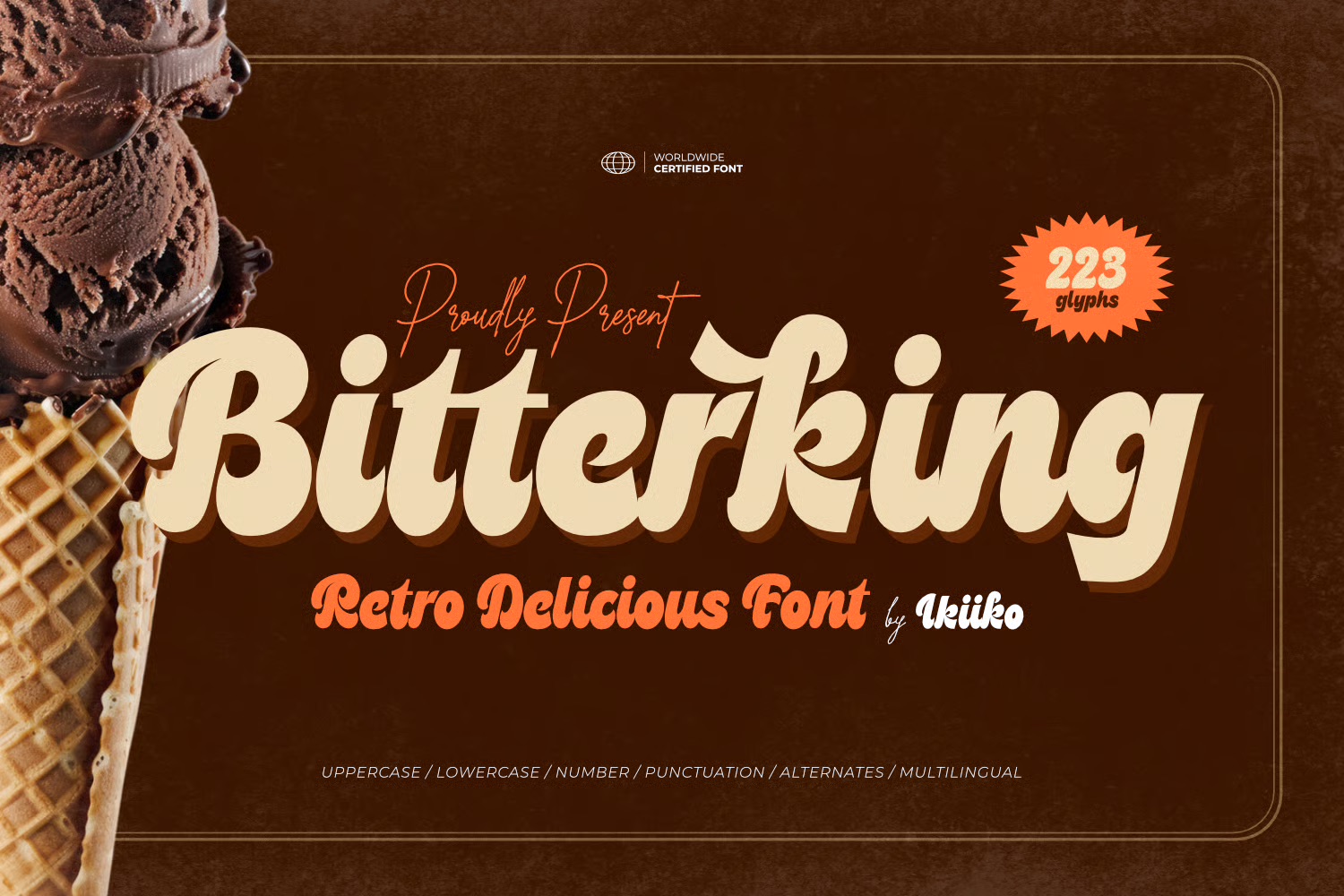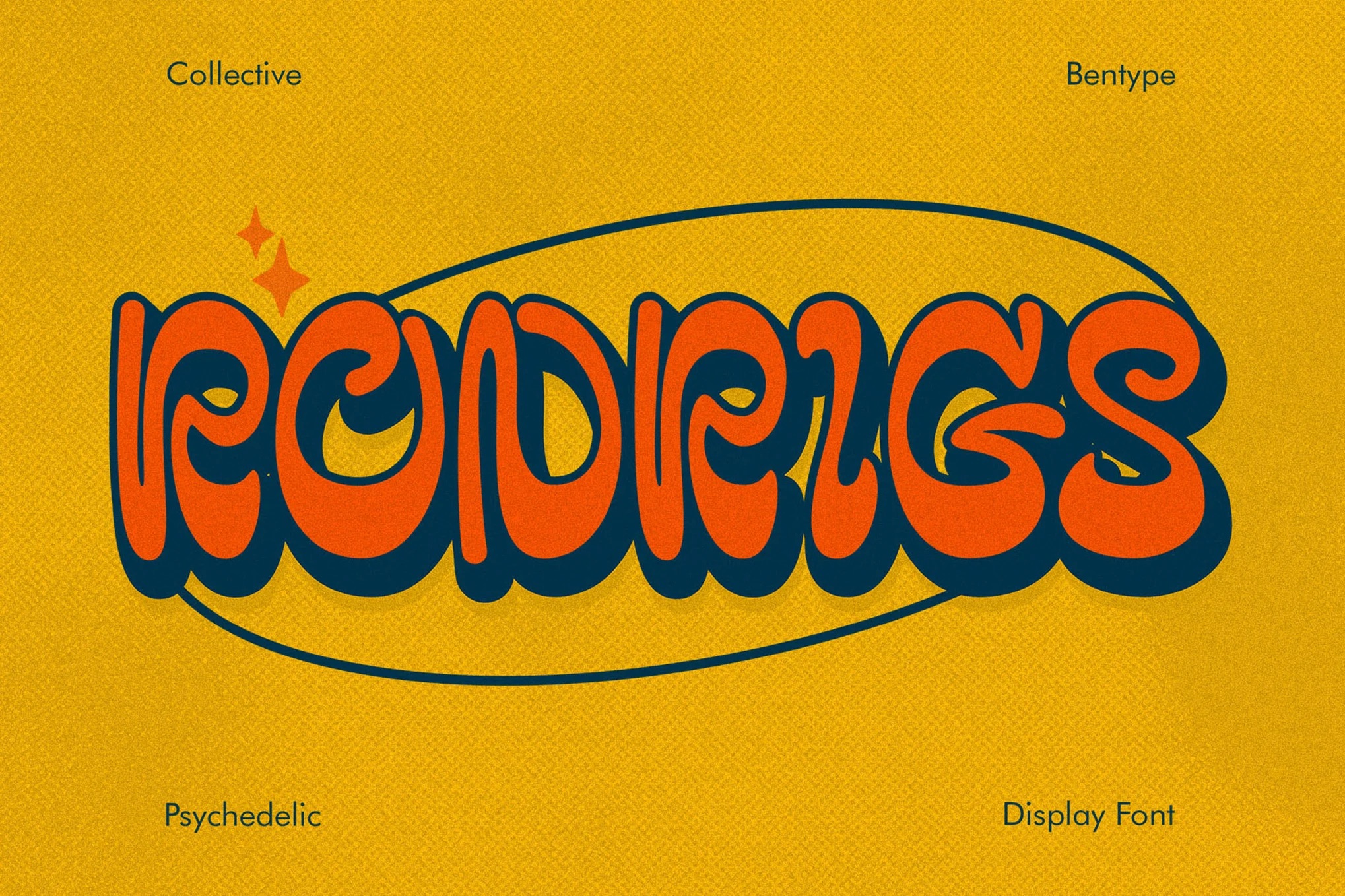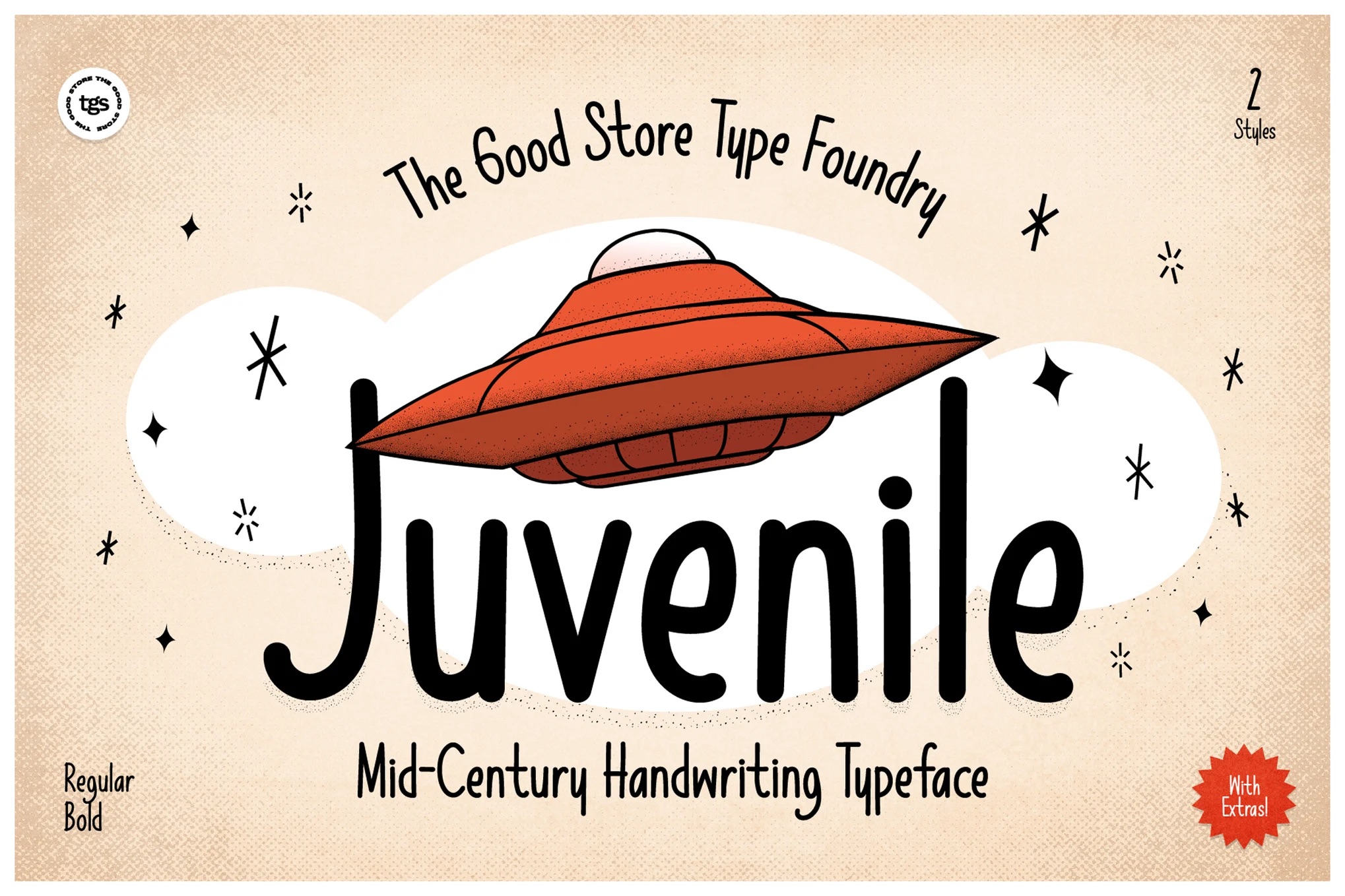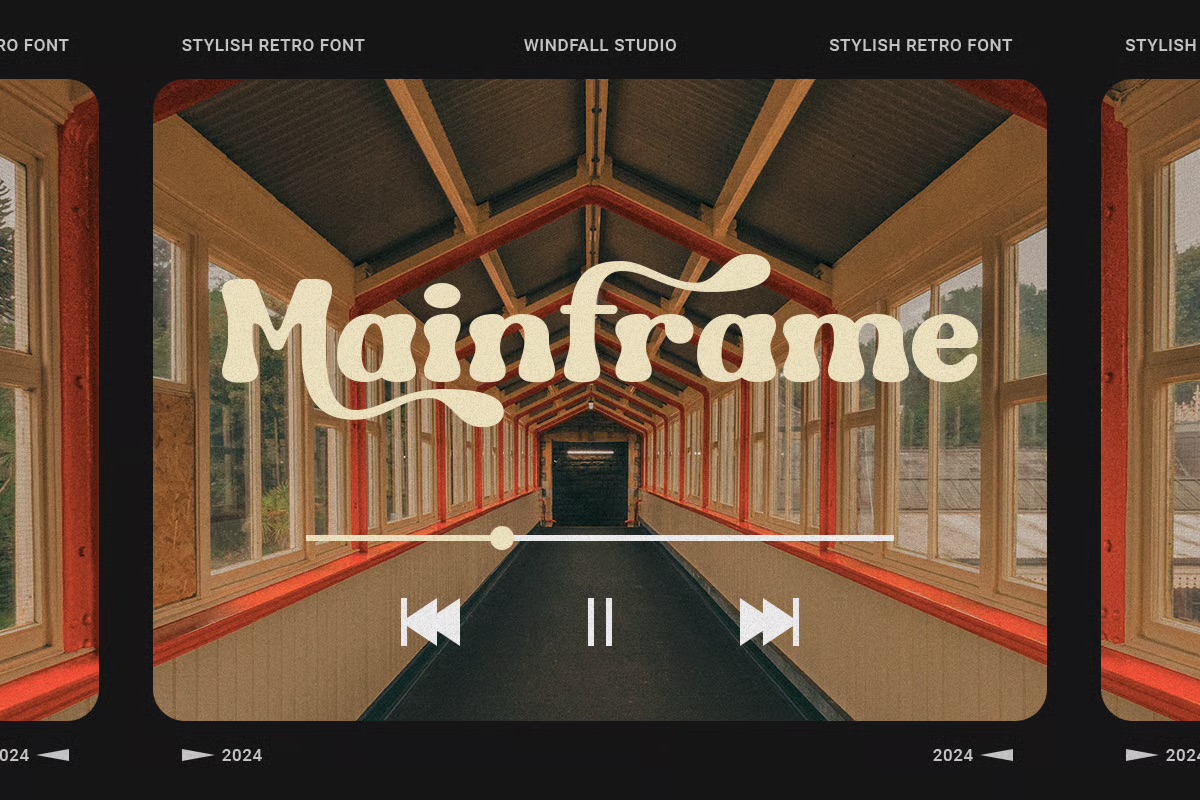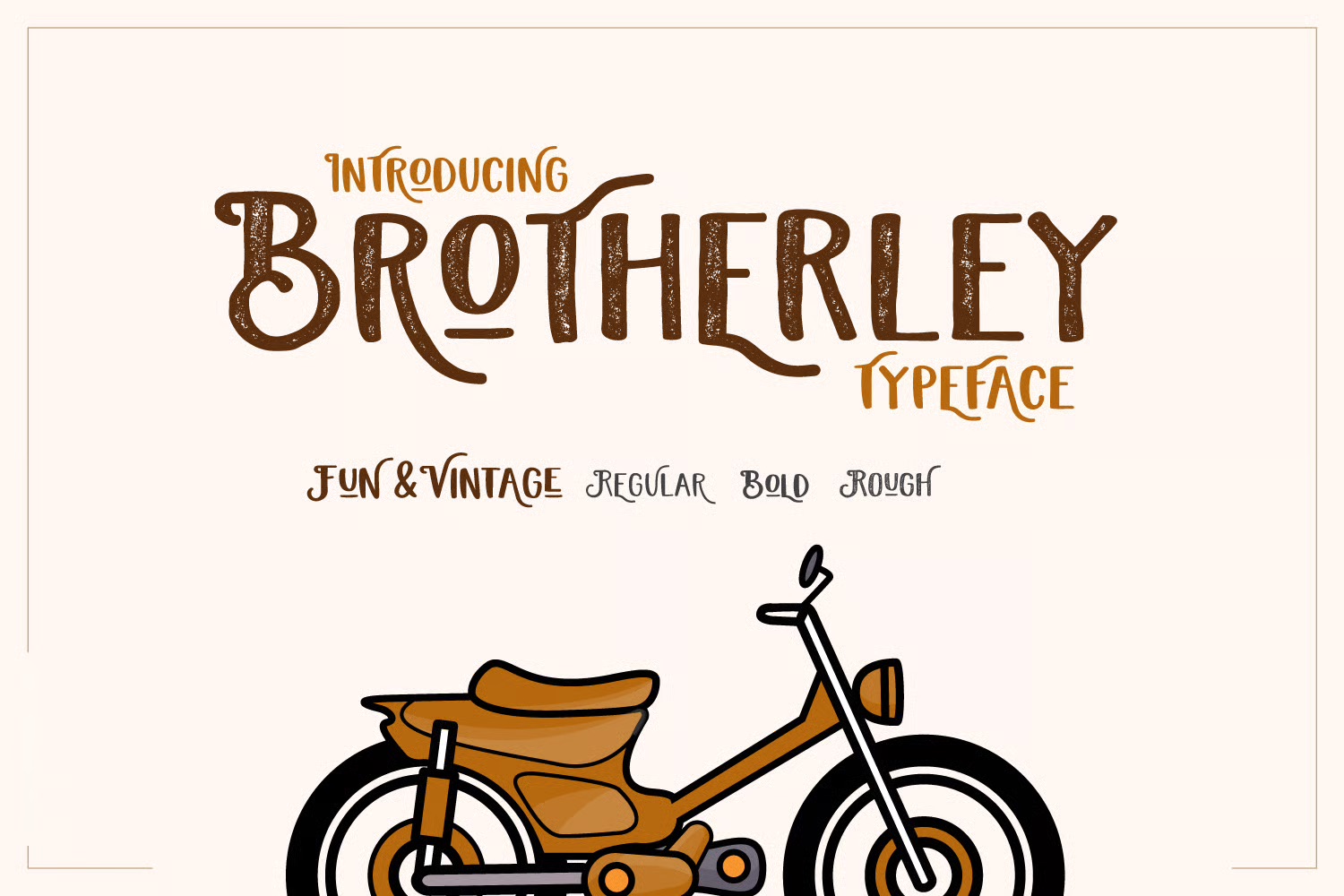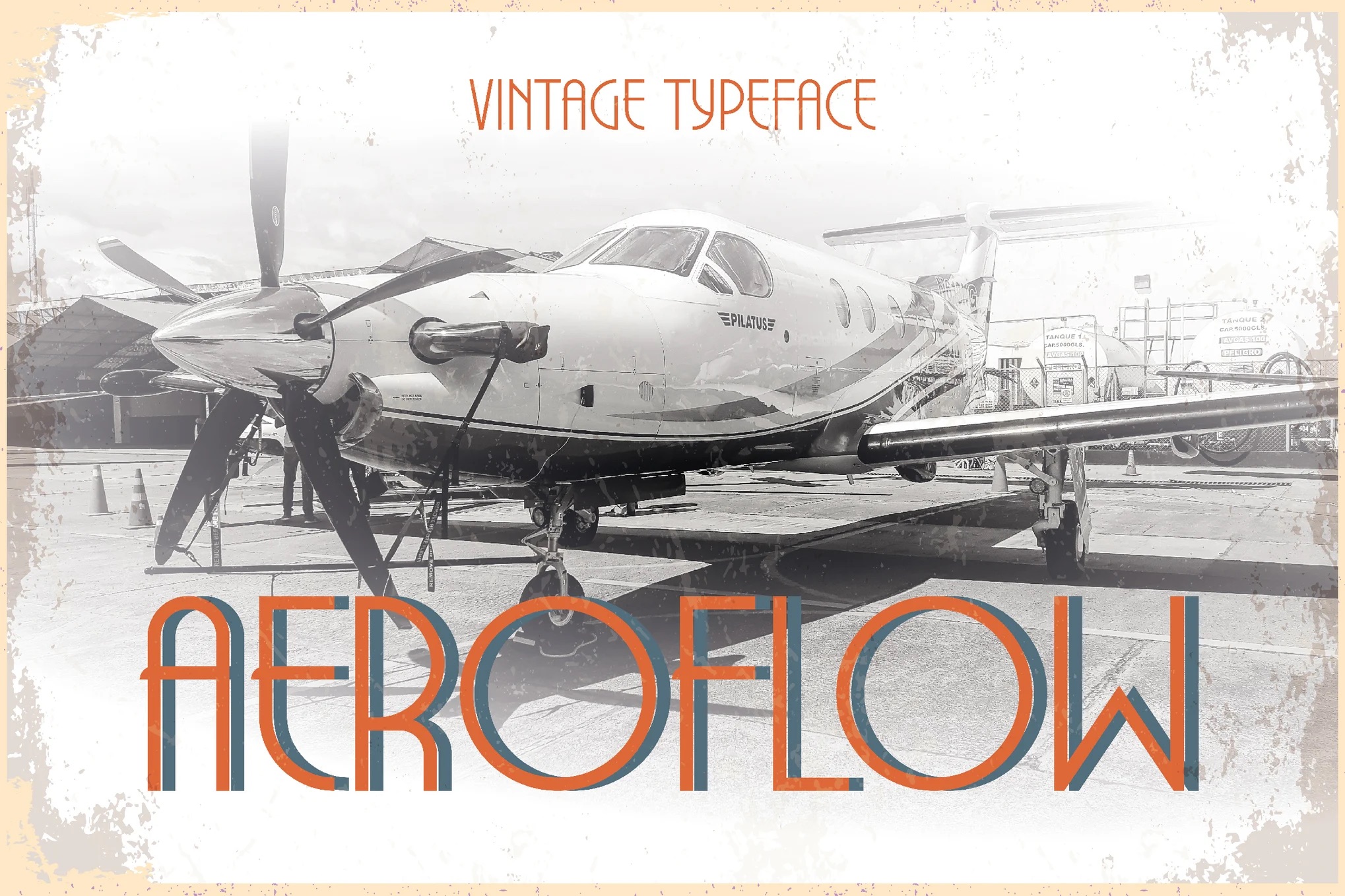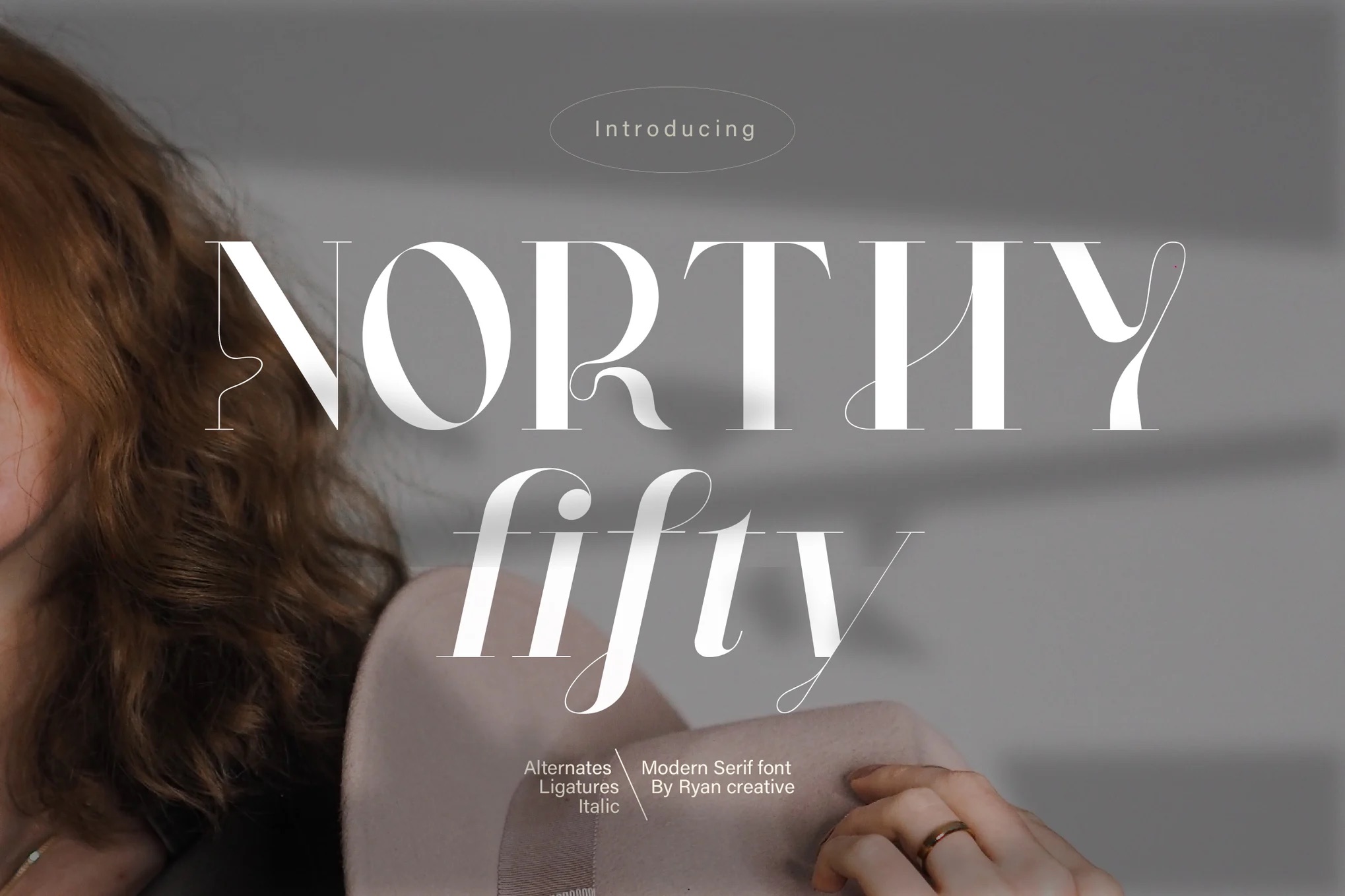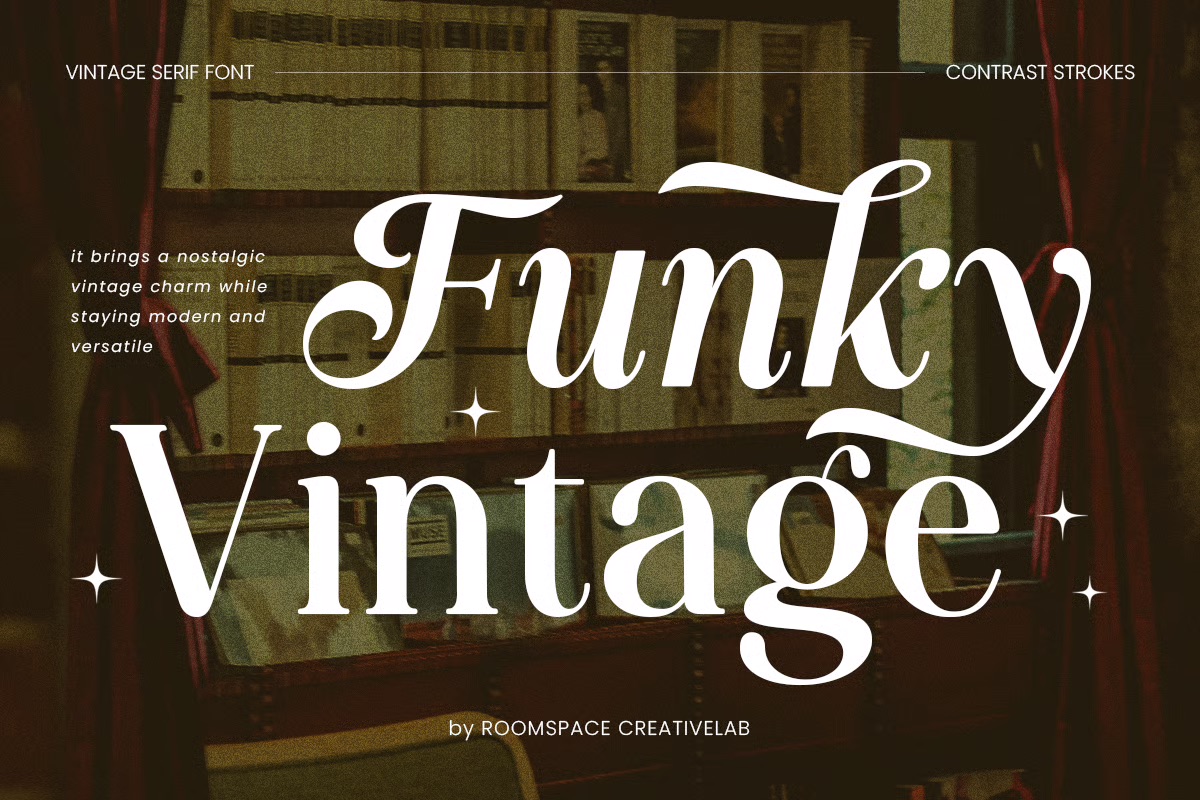
9 Best 1950s Fonts: Retro Designs with 50s Font Collection
The moment you see those bold curves, the playful script, the triangles, italic and other shapes that defined the 1950s, your mind travels straight back to soda shops, drive-in theaters and a very realistic view of what hand painted signs looked like beneath warm lights.
This guide will show you all the 1950s fonts I love, enabling your designs to have an authentic look and feel that is both old-fashioned but refreshing.
If you’re working on a project that needs some of that iconic 1950s era energy, it’s worth giving this blog post a read through because fonts can help do much more than simply change around a few letters so people might be able guess at what you were thinking once upon time.
To make it easier to follow, I have spelled out an outline with top questions and topics that people usually ask when looking at ’50s fonts and retro designs for their own art.
What makes a top 1950 retro font instantly recognizable in design?
When you try to imagine the 1950s what springs into your mind? The script lettering on diner menus; bold shapes for product packaging; and light geometric typefaces used at that time in advertising.
A powerful font from 1950s is often characterized by width and lines that are strong even in the lighter parts.
Many characters seem to have been drawn with a brush; this was, after all, an era when real artists painted signs instead of so many things being mass-produced and stamped out like a twist of paper.
There is also a spirit of hope for the future. The decade abounded in growth and invention, and typefaces mirrore d this optimism. A font family from that period often reflected the lively attitude with round shapes, italics and a combination of fat and slim strokes.
You use them today and you give your project that seem familiar smell of nostalgia, stepping into a shop that has not changed since 1950.
Bitterking
Bitterking has that fun, nostalgic vibe that instantly makes you think of old-school ice cream shops and vintage packaging. It’s bold, curvy, and full of personality, perfect for adding a sweet retro twist to branding, menus, or anything that needs a playful touch.
Rodrigs – Psychedelic Display Font
Rodrigs is a bold and trippy display font that instantly grabs attention. It feels playful, artistic, and full of retro energy, perfect for posters or creative projects that need personality. It’s not about being subtle, it’s about making a statement that pops.
Juvenile Typeface + Flyers + Instagram + Badge
Juvenile has that playful mid-century vibe that feels both nostalgic and fresh. It looks like something straight out of a 1950s notebook, full of charm and personality. Perfect for retro projects that need a touch of fun and handwritten warmth.
Mainframe – 70s, 80s Vintage Retro
Mainframe has that cool retro vibe that instantly takes you back to the 70s and 80s while still feeling fresh and modern. It’s smooth, stylish, and full of personality, perfect for designs that need a touch of nostalgia with a clean, contemporary twist.
Brotherley
Brotherley has that cool mix of vintage charm and modern playfulness. It feels handcrafted but still clean enough for everyday designs. I love how it works for logos, posters, or even kids’ tees. It’s fun, stylish, and full of personality.
Happie Vintage – Psychedelic Display Font
Happie Vintage instantly gives off that groovy 70s vibe with its bubbly letters and playful curves. It feels cheerful and full of personality, perfect for posters, logos, or anything that needs a fun retro touch that makes people smile.
Aeroflow – Vintage Aviation Display
Aeroflow has that cool mid-century vibe that instantly feels nostalgic. It’s clean, bold, and full of personality, perfect for logos, posters, or packaging that need a touch of vintage flair. Think classic aviation meets timeless design with a modern twist.
Northy Fifty
Northy fifty feels fresh and refined with elegant feet on each letter that give it a chic, fashion-forward vibe. It includes alternates and ligatures for creative flair, works across apps and platforms, and suits magazines, posters, branding, and stylish digital projects.
Funky Vintage
Funky Vintage feels like a bold nod to retro charm with a fresh modern twist. Its strong serif strokes and smooth curves give designs instant personality while staying versatile enough for logos, posters, packaging, and stylish editorial work.
How do designers create that authentic 1950 look today?
When you try to imagine the 1950s, what springs into your mind? The script lettering on diner menus; bold shapes for product packaging; and light geometric typefaces used at that time in advertising.
A powerful font from 1950s is often characterized by width and lines that are strong even in the lighter parts.
Many characters seem to have been drawn with a brush; this was after all an era when real artists painted signs instead of so many things being mass-produced and stamped out like a twist of paper.
A 1950 script can look great on a postcard or website header. A bold retro display type can work on packaging or Instagram posts. The trick is first making sure your style suits the medium.
It’s no good trying to apply to 50’s lifestyle onto a magazine though. For web, you could widen spacing between characters to make type easier to read When you pick up these two lessons, your work just feels right.
It is not like those web design clothes which are awkward and uncoordinated but always stay intact.